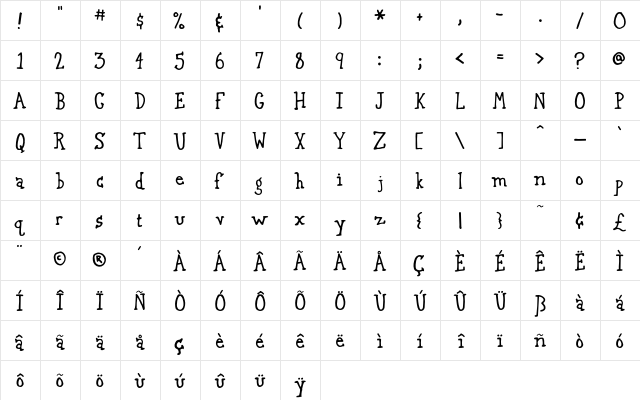
Gurnsey 20
Design Context for Gurnsey Typeface
Gurnsey is a composed and adaptable typeface that performs quietly and consistently across a wide range of design contexts.